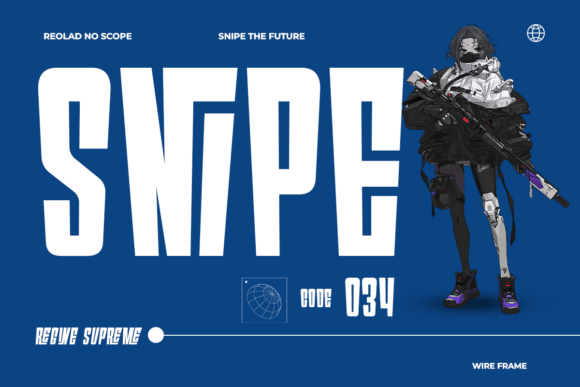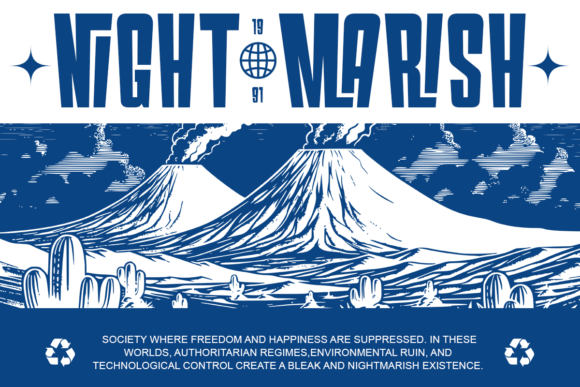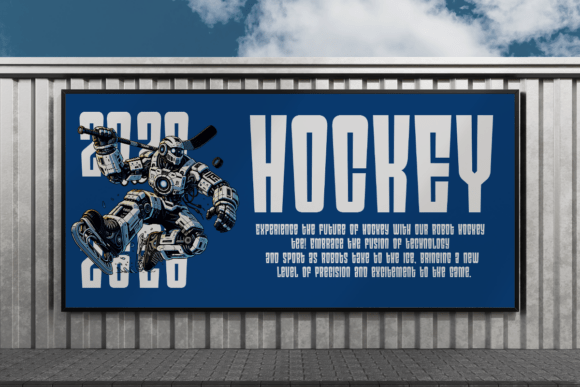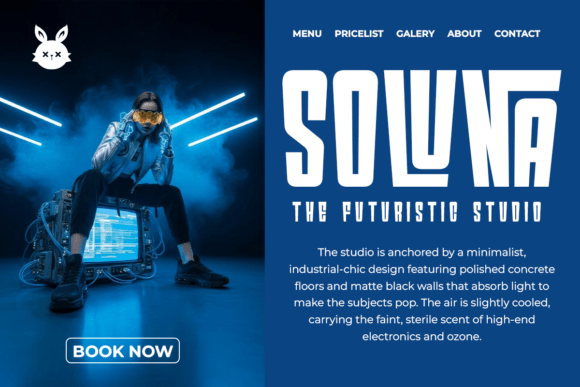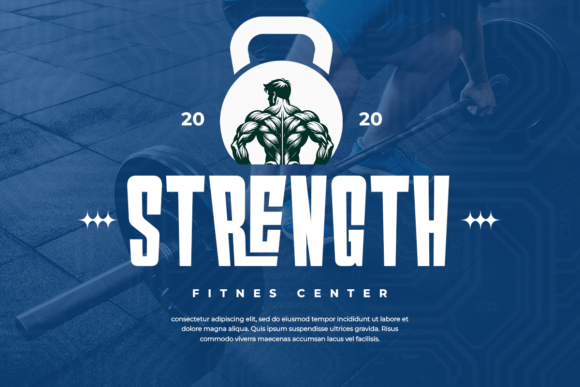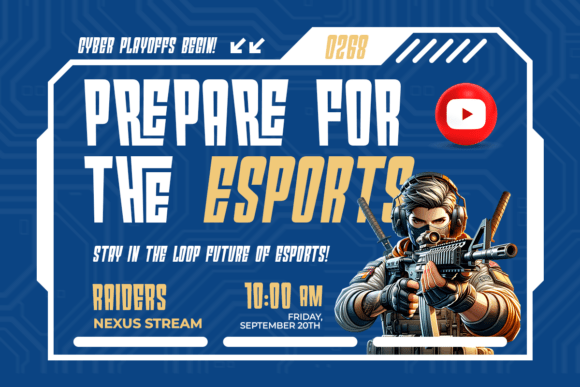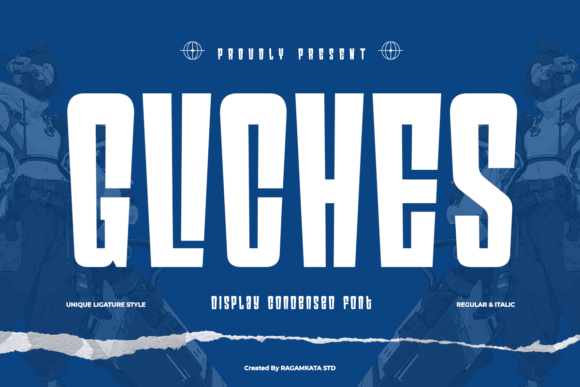
Introducing Gliches Font: The Ultimate Display Font for High-Impact Visuals
In the world of typography, a good font can make all the difference in creating a lasting impression. For designers and crafters looking for a bold and condensed display font that exudes confidence and style, look no further than Gliches Font. Inspired by modern gaming aesthetics and urban poster culture, Gliches is a striking typeface that delivers a perfect balance between compact structure and powerful readability.
The Design Behind Gliches Font
Gliches Font is built for high-impact visuals, with a bold and condensed design that makes it perfect for grabbing attention in tight spaces. Its tall, narrow forms ensure that your message gets noticed without losing visual dominance. The font’s unique ligature style adds a distinctive twist, giving designers more creative flexibility when crafting logos, headlines, or branding systems.
Key Features of Gliches Font
- Bold and Condensed Design: Gliches Font is designed to make a statement, with a bold and condensed structure that ensures your message gets noticed.
- High-Impact Visuals: Perfect for esports visuals, streetwear branding, or digital campaigns, Gliches Font injects personality and style into your designs.
- Unique Ligature Style: The font’s distinctive ligature style adds a creative twist, giving designers more flexibility when crafting logos, headlines, or branding systems.
- Powerful Readability: Despite its condensed design, Gliches Font maintains powerful readability, making it perfect for use in a variety of applications.
Use Cases for Gliches Font
Gliches Font is a versatile typeface that can be used in a variety of applications, including:
- Esports Visuals: Add a competitive edge to your esports branding with Gliches Font’s bold and condensed design.
- Streetwear Branding: Give your streetwear brand a stylish and urban look with Gliches Font’s unique ligature style.
- Digital Campaigns: Make your digital campaigns stand out with Gliches Font’s high-impact visuals and powerful readability.
- Logos and Headlines: Use Gliches Font to create striking logos and headlines that grab attention and make a lasting impression.
Why Choose Gliches Font?
With so many fonts to choose from, why choose Gliches Font? Here are just a few reasons:
- Unique Style: Gliches Font offers a unique and distinctive style that sets it apart from other fonts.
- Versatility: The font’s versatility makes it perfect for use in a variety of applications, from esports visuals to streetwear branding.
- High-Quality Design: Gliches Font is designed to high-quality standards, ensuring that your designs look professional and polished.
In conclusion, Gliches Font is a bold and condensed display font that is perfect for designers and crafters looking for a high-impact typeface. With its unique ligature style, powerful readability, and versatile design, Gliches Font is sure to make a lasting impression. Whether you’re working on esports visuals, streetwear branding, or digital campaigns, Gliches Font is the perfect choice for adding personality and style to your designs.